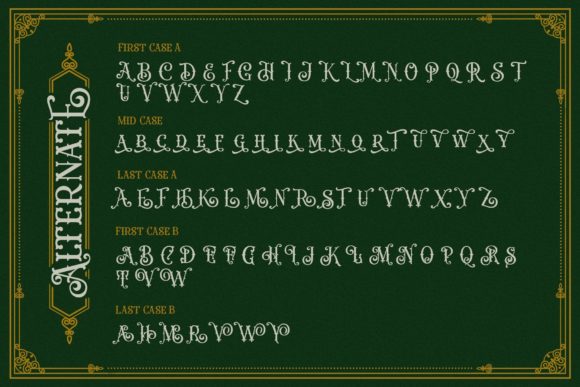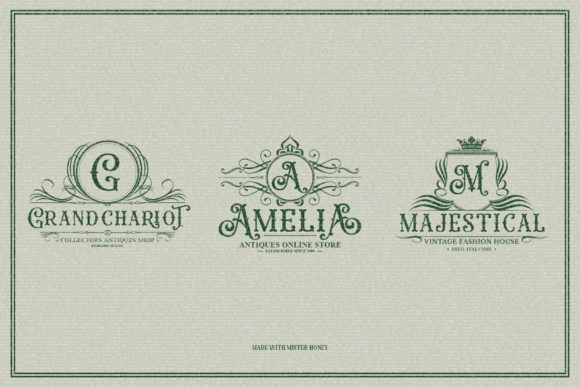
Mister Honey Font
Mister Honey is a victorian and distinct blackletter font. It is PUA encoded which means you can access all glyphs and swashes with ease! This font is imposing and features uniquely shaped letters, and as a result, it will easily match a wide range of creations that require a distinct touch.